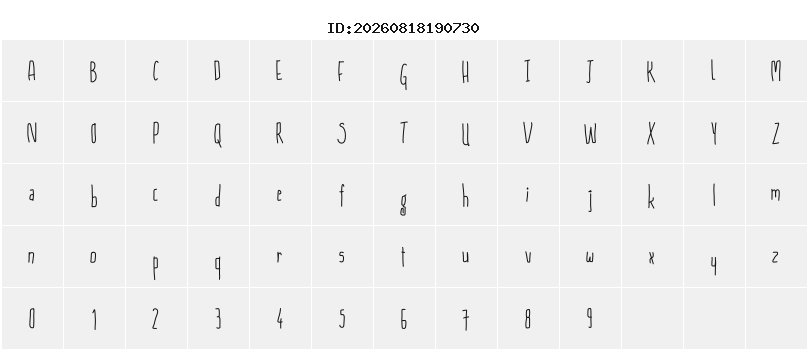
Skinny But Cute~ Preview
• Font Name: Skinny But Cute~
• Full Font Name: Skinny But Cute~
About Skinny But Cute~.ttf
Skinny But Cute~.ttf is a modern, elegant sans-serif font designed for ultimate readability and visual harmony. Perfect for branding, headlines, web design, and print materials.